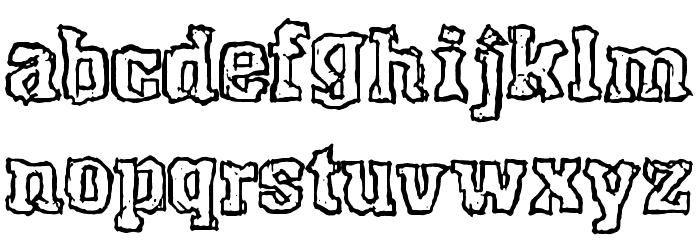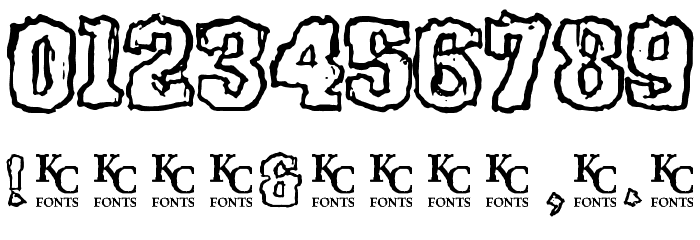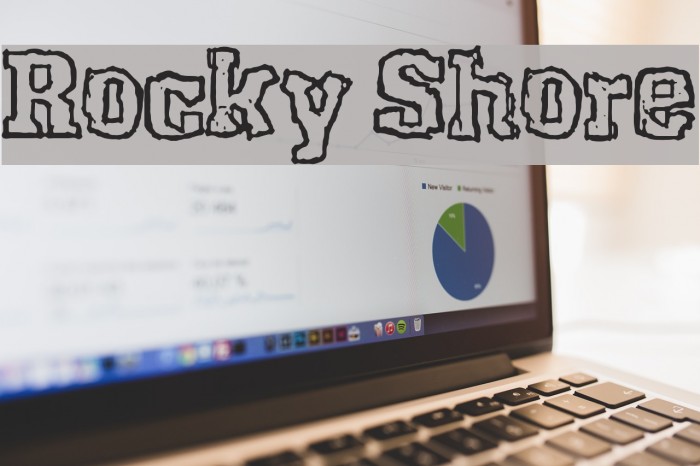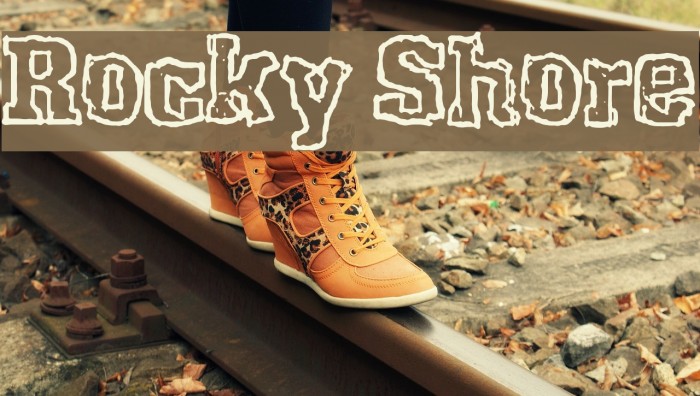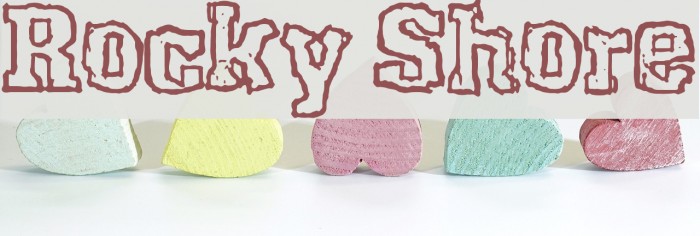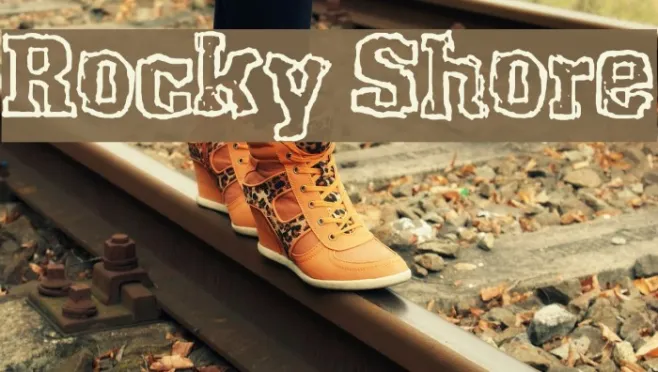
Rocky Shore Font
This font features a rugged, textured appearance reminiscent of natural rock formations. The characters have a bold, uneven outline that gives them a hand-carved look, adding a sense of depth and dimension. The uppercase and lowercase letters maintain a consistent style, with jagged edges and irregular shapes that create a dynamic and eye-catching effect. The numbers and special characters follow the same design principles, ensuring a cohesive look across all glyphs. This font is ideal for projects that require a bold, organic feel, such as outdoor-themed branding or artistic designs.
A rugged, textured font with a hand-carved, organic appearance.
- Proposed Projects: Ideal for outdoor-themed branding, artistic designs, posters, and logos that require a bold, natural aesthetic.